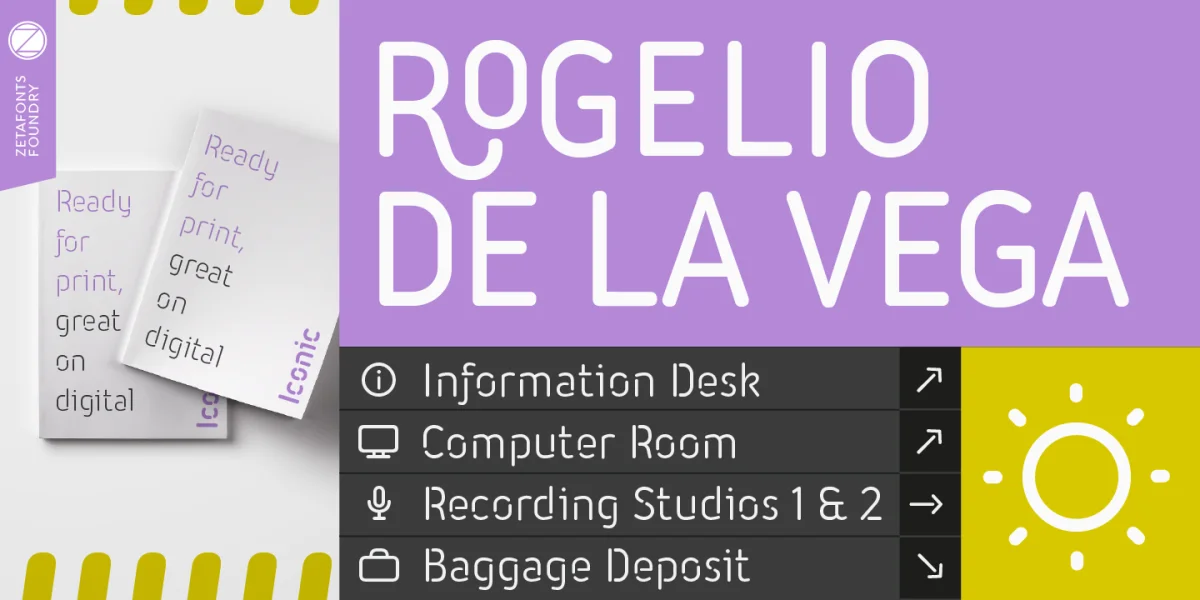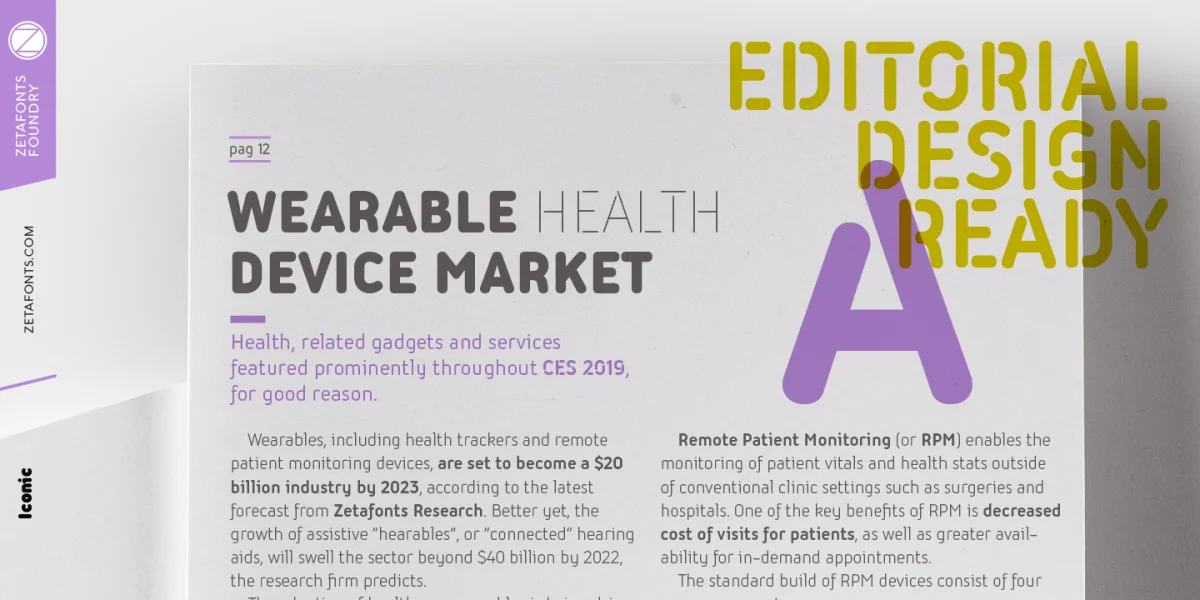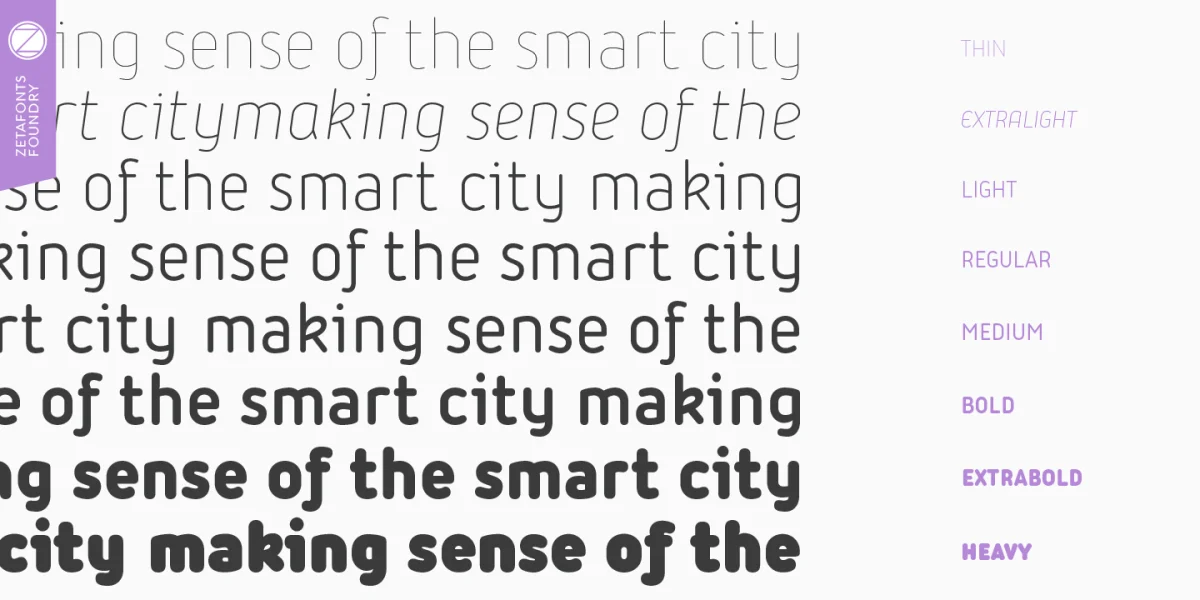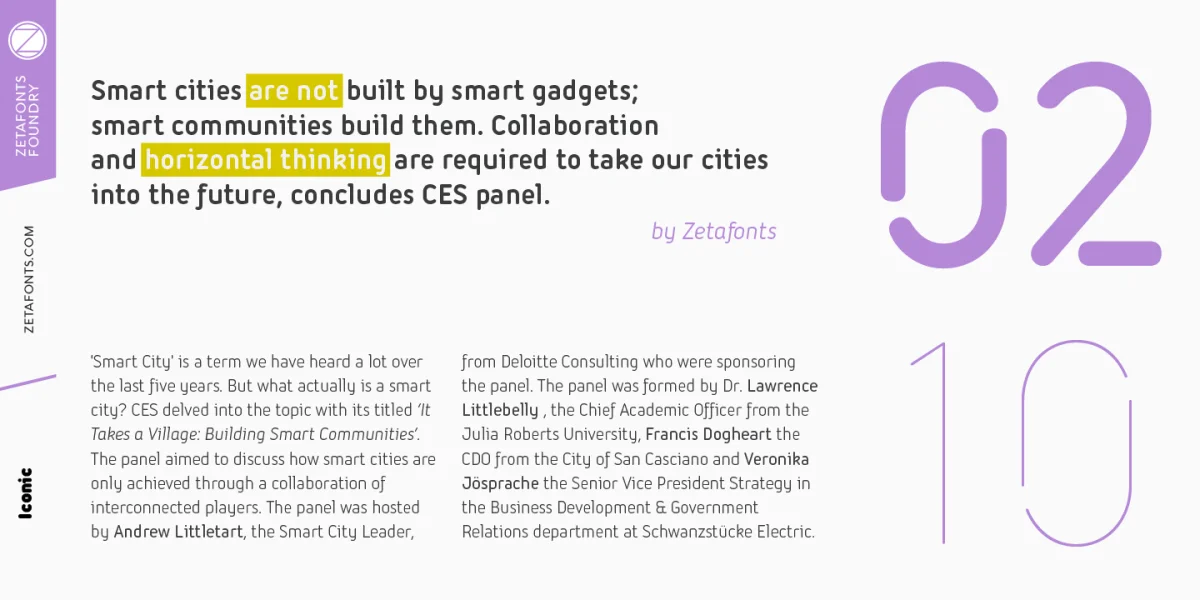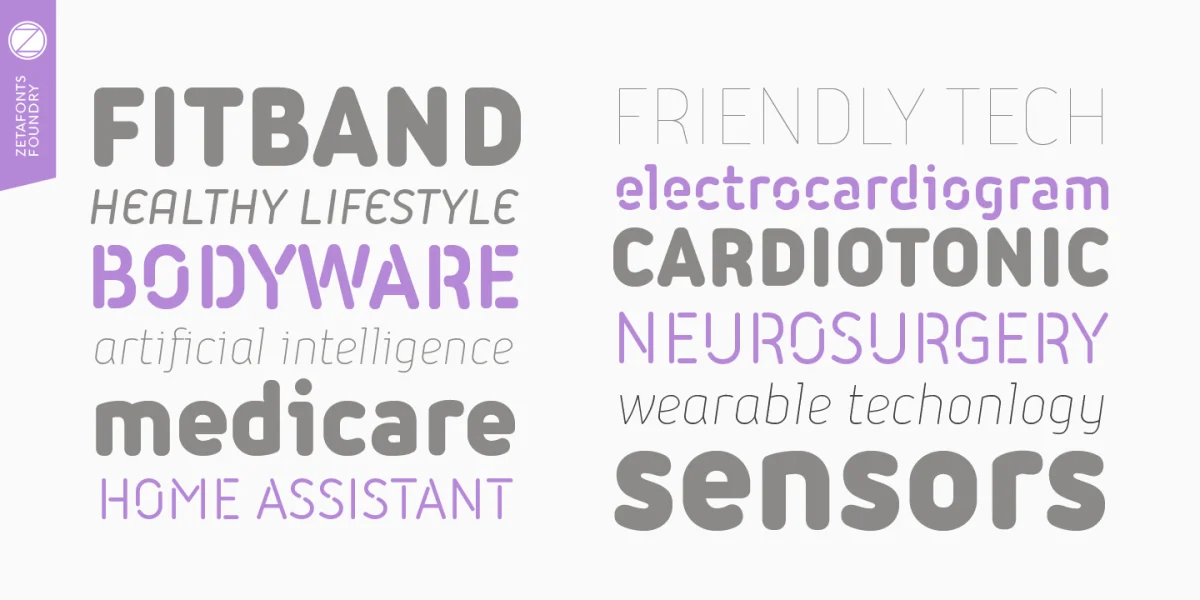
Iconic is a rounded condensed sans-serif typeface, a multi-purpose workhorse family designed for clear and effective editorial, interface and information design with minimum usage of space. The extensive range of weights allows both for text and display usage. A Stencil subfamily has been designed to complement with a more aggressive technical look, perfect for way-finding, branding and interaction design. Both Iconic and Iconic Stencil feature OpenTypes features, an extended character set of over 1200 glyphs that covers over 220 languages using the Latin alphabet, as well as Greek and Russian Cyrillic.